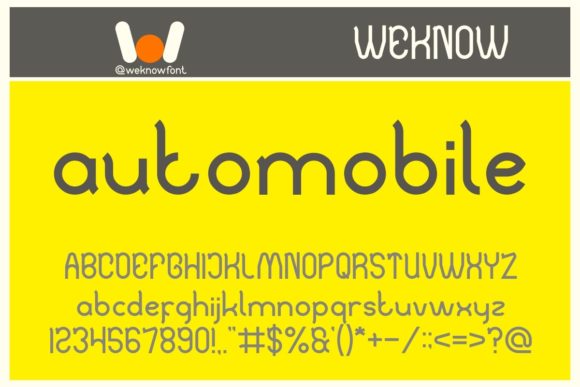
The Ultimate Guide to Automobile Font: A Designer’s Dream Come True
An Honest Review of Automobile Font
Automobile Font is a techno-looking display font that’s sure to impress with its bold and original style. Here are some things I love about it:
- ✨ Unique and original design: Automobile Font stands out from the crowd with its futuristic and sleek design.
- ✅ Highly versatile: This font is perfect for logos, branding, labels, posters, music, movies, games, books, and so much more!
- 💥 Attention-grabbing: The bold and edgy design of Automobile Font is sure to grab attention and make your project stand out.
Of course, no font is perfect, and Automobile Font has a few small quirks:
- 🤔 Limited use in body text: Due to its bold and edgy design, Automobile Font may not be the best choice for body text or long paragraphs.
- ⚠️ Requires careful kerning: As with any font, kerning is crucial to ensure that Automobile Font looks its best.
The Backstory Behind Automobile Font
Automobile Font was designed by a team of typographers who wanted to create a font that would evoke the speed and style of the automotive industry. Inspired by the sleek lines and curves of sports cars, they crafted a font that’s both bold and sophisticated.
| Font Name | Automobile Font |
| Author | weknow |
| What is Automobile Font best used for? | Automobile Font is perfect for logos, branding, labels, posters, music, movies, games, books, and so much more! |
| Is Automobile Font suitable for body text? | While Automobile Font can be used for body text, it’s not the best choice due to its bold and edgy design. It’s better suited for headlines and titles. |